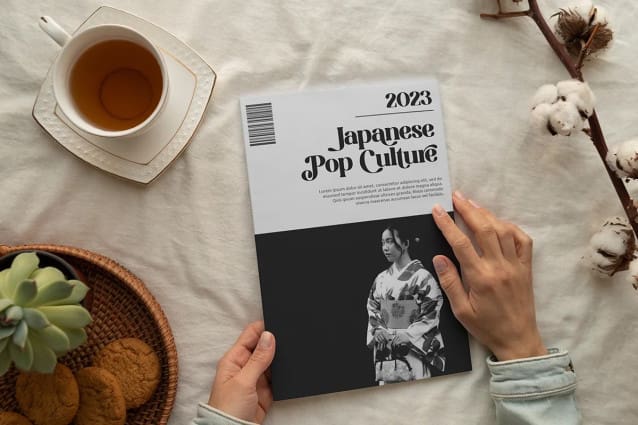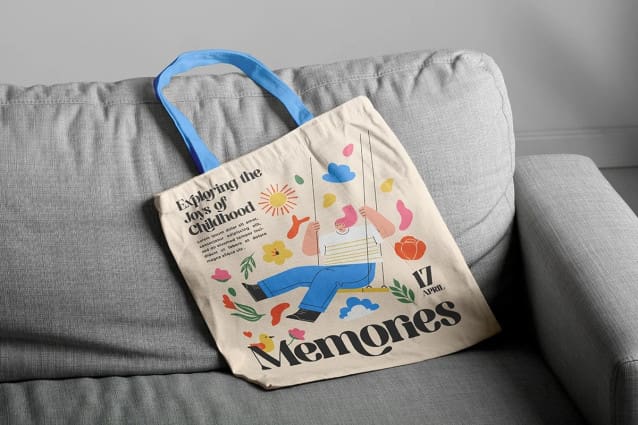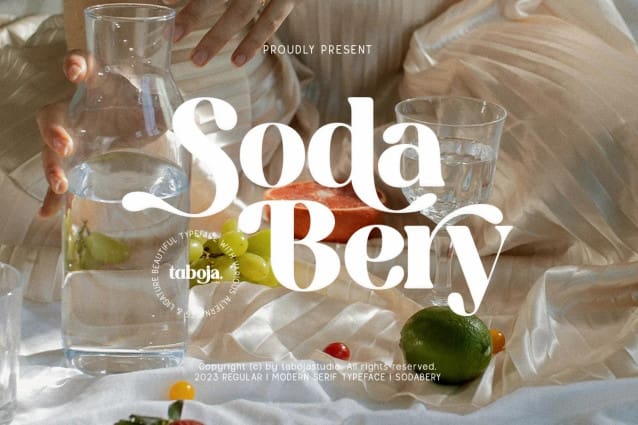
Sodabery Font
Sodabery Font, is Modern elegant serif typeface, perfect for projects that require a vintage feel, such as posters, logos, packaging, and promotional materials that aim to capture a nostalgic and sophisticated atmosphere.
This font will add a special touch to your designs and captivate viewers with its retro allure and distinctiveness.